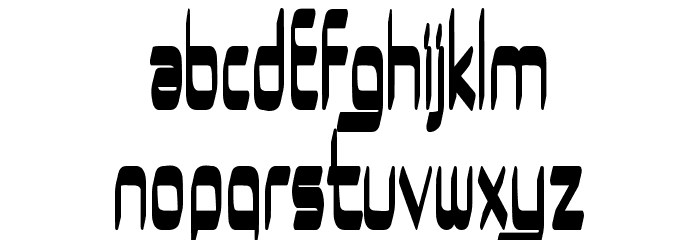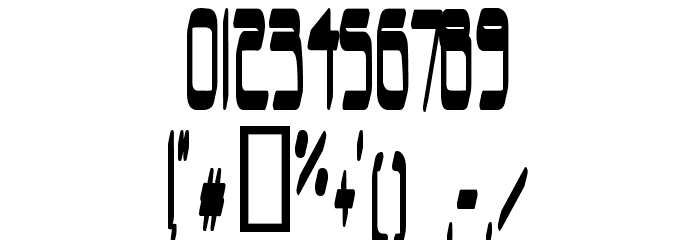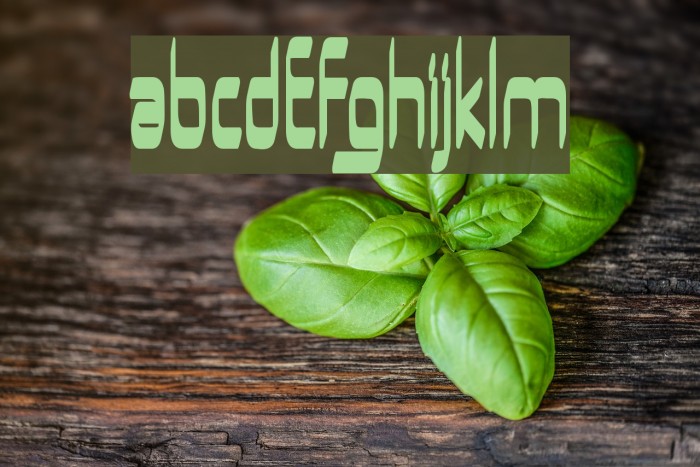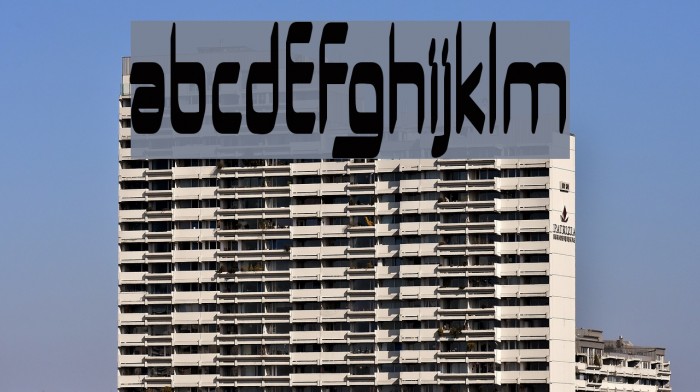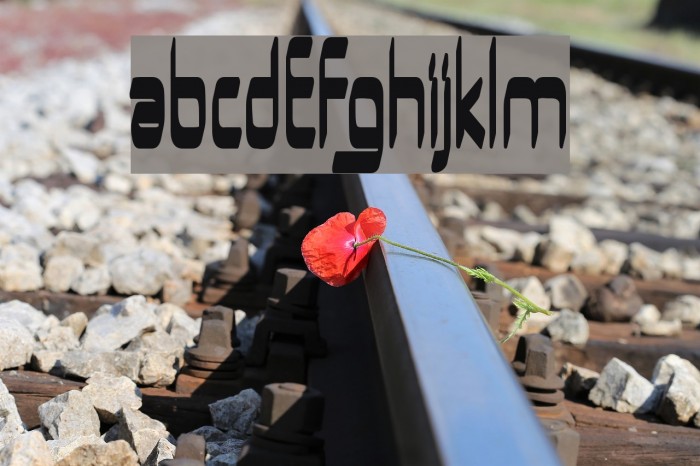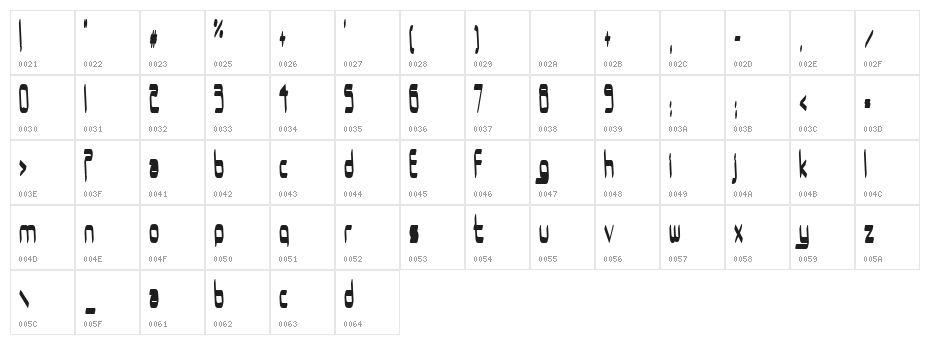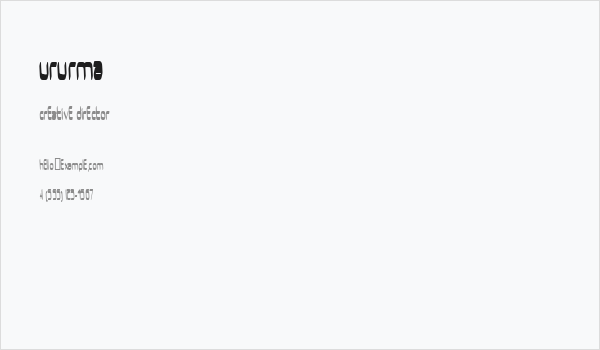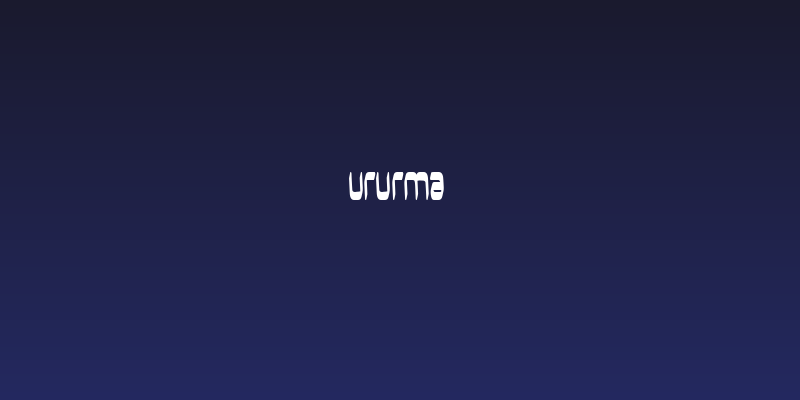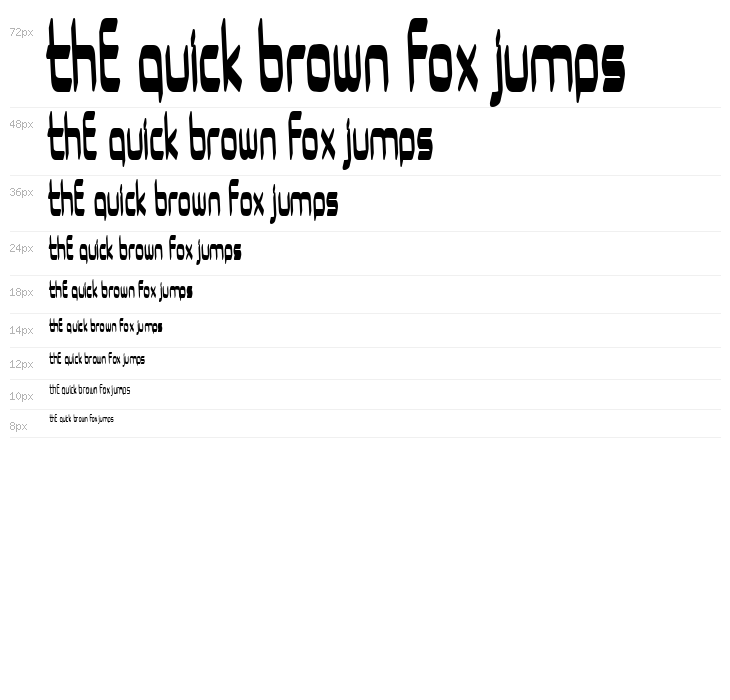
UrUrMa Font
This font features a futuristic and geometric style with a distinct angular design. The characters are bold and have a unique, almost stencil-like appearance, with sharp edges and a consistent stroke width. The uppercase and lowercase letters maintain a uniform height, contributing to a cohesive look. The numerals and special characters follow the same design principles, ensuring a seamless integration across all text elements. The font's modern aesthetic makes it suitable for projects that require a contemporary and edgy feel.
A futuristic, geometric font with bold, angular characters.
- Proposed Projects: Ideal for tech branding, sci-fi posters, video game interfaces, and modern advertising.